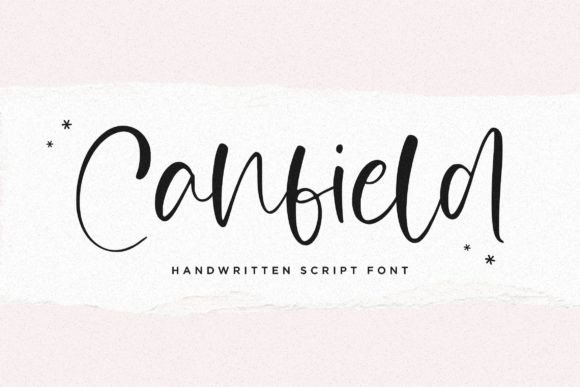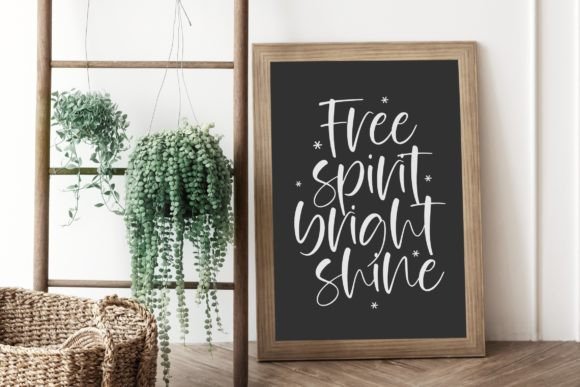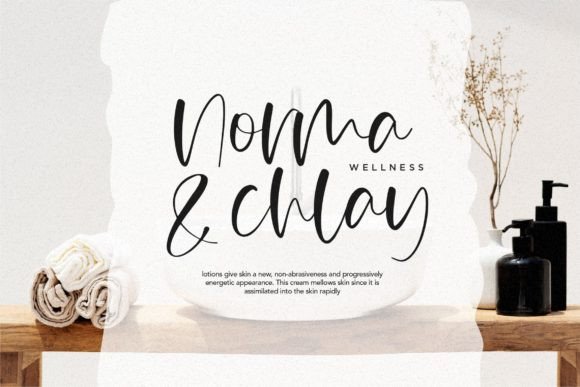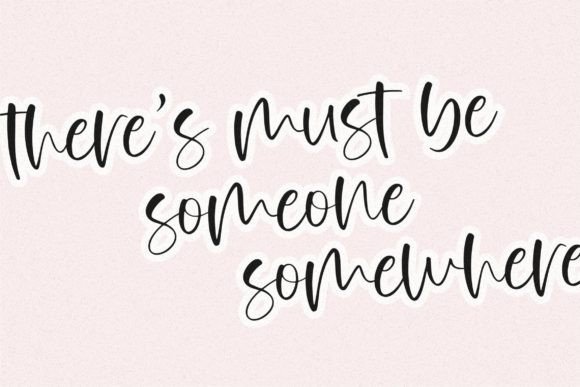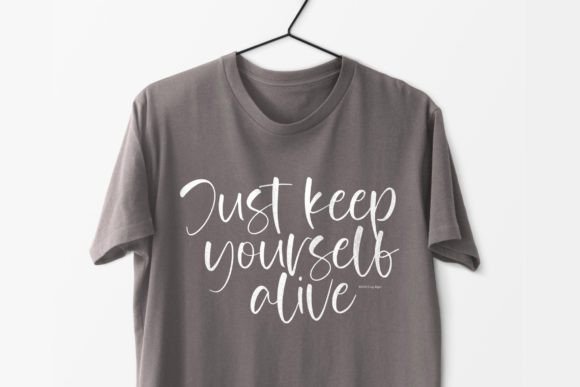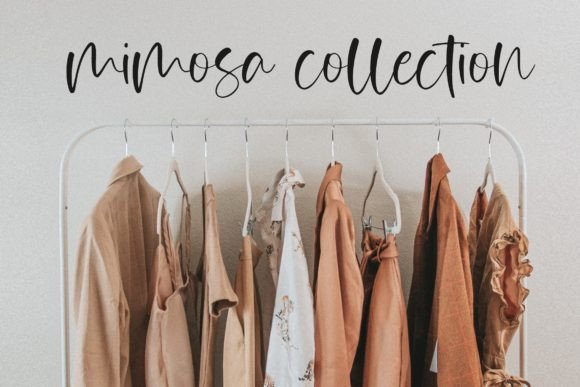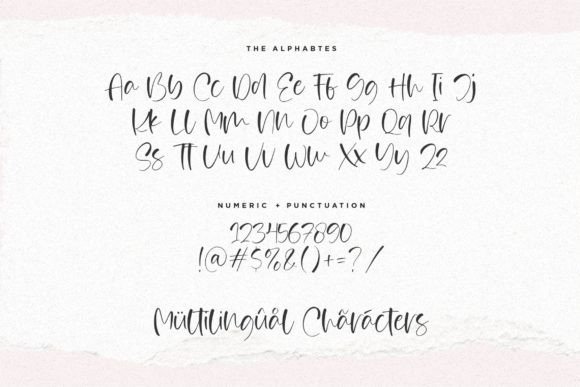
Canfiled Font
About Canfiled Font
Canfiled is a delicate and elegant handwritten font. Its distinct and well balanced letters make this font a masterpiece. Fall in love with its incredibly versatile style and use it to create spectacular designs!